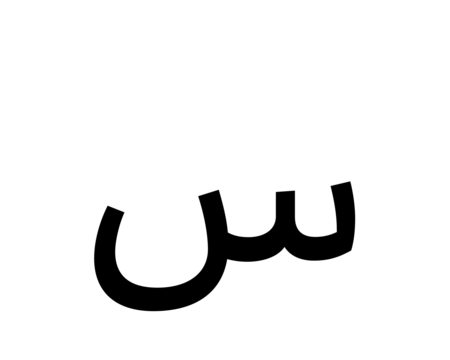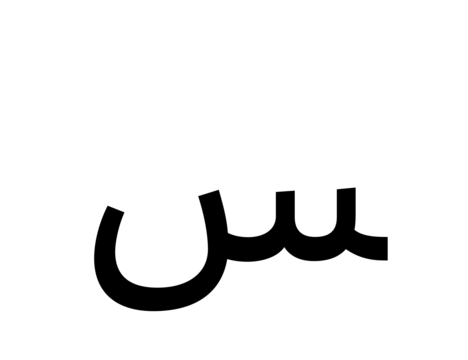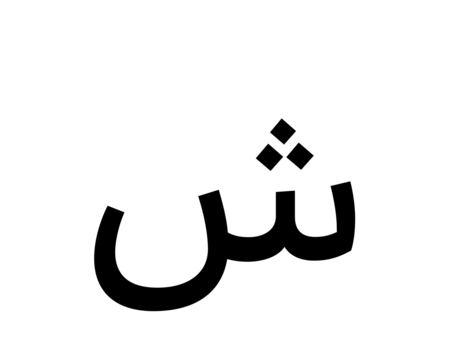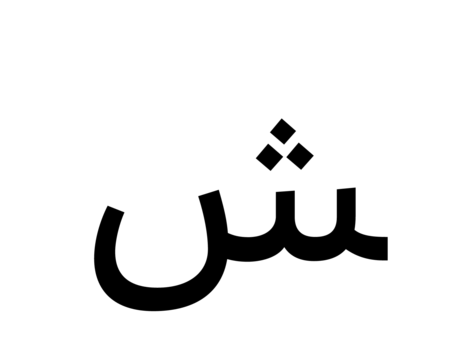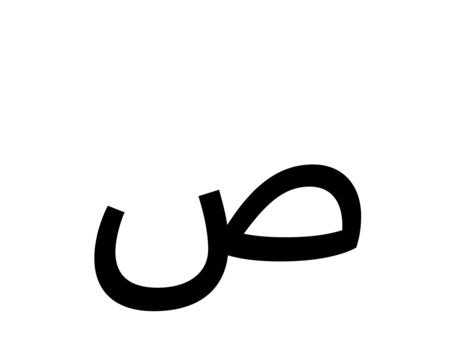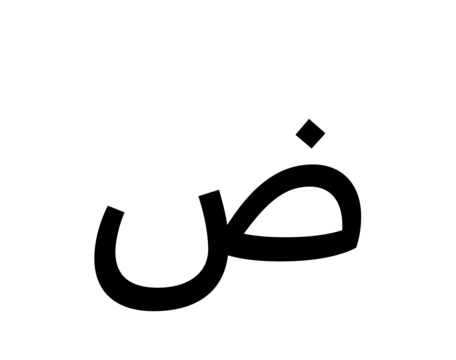
Diodrum Arabic is a low-contrast Naskh family with six weights. The typeface has been optimised for corporate identity work, editorial design, and UI/UX projects. Arabic typically places a stronger emphasis on the horizontal than the Latin script does. Since both the Arabic and the Latin letterforms in Diodrum are monolinear, we have employed another method to increase the prominence of horizontality: the counterforms are large and open, and the letters’ middle sections are accentuated. Many of Diodrum’s strokes begin or end with lightly-sheared lines; these subtle angles add a trace of calligraphy back into the static language of sans serifs. The same is true for the typeface’s Arabic-script dots and marks.
Family Name Diodrum Arabic
Designer(s) Bahman Eslami
Available Style Extralight, Light, Regular, Medium, Semibold, Bold
Classification Sans